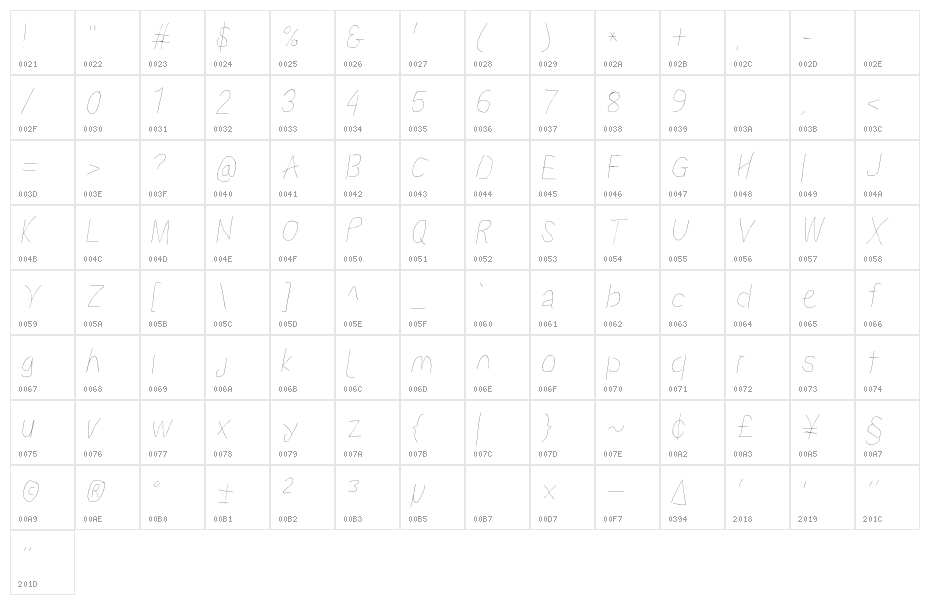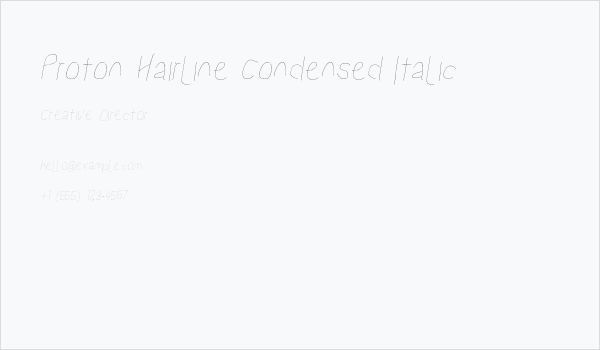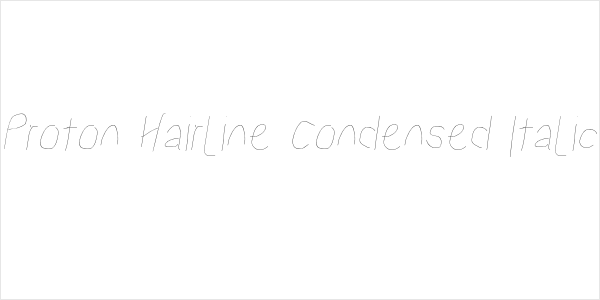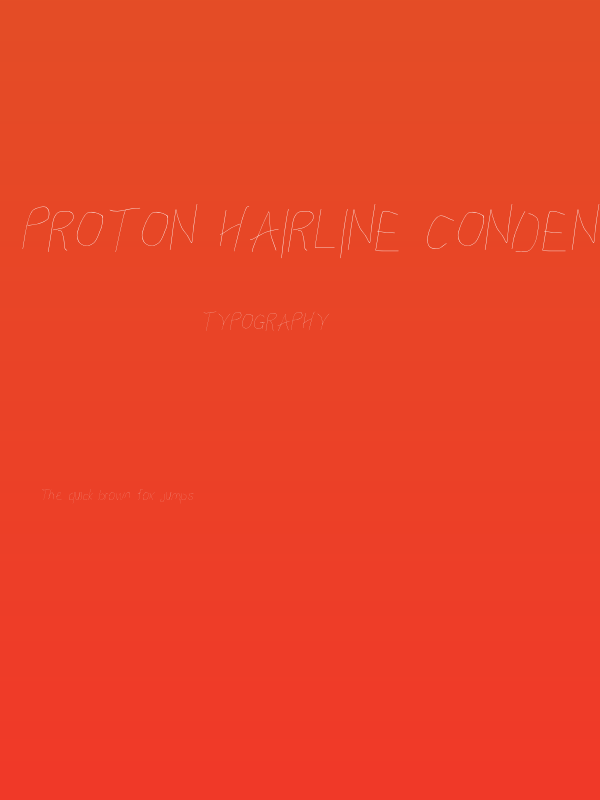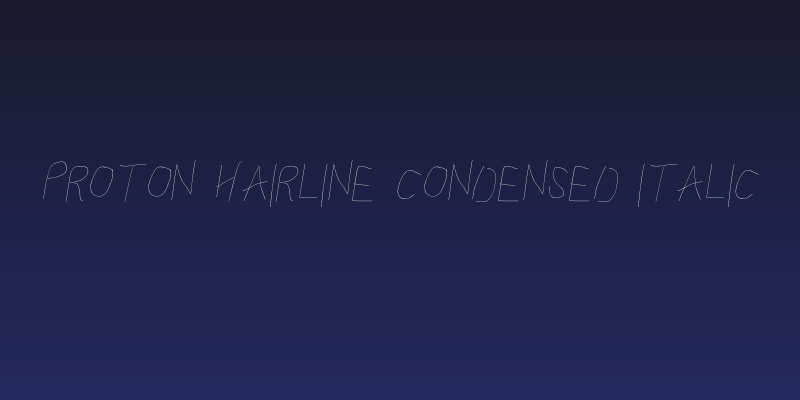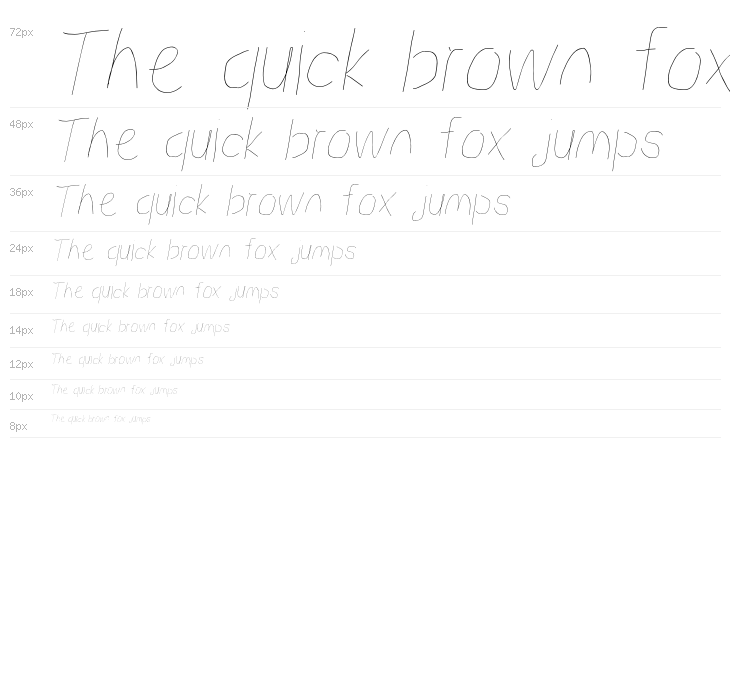
Proton Hairline Condensed Italic Font
Proton Hairline Condensed Italic Description
This font features a delicate and refined appearance, characterized by its thin, hairline strokes and a condensed structure. The italic style adds a sense of elegance and fluidity, making it suitable for sophisticated and modern designs. The characters are slightly slanted, enhancing the dynamic and graceful look. The font maintains a consistent stroke width throughout, contributing to its minimalist and sleek aesthetic. Its condensed form allows for efficient use of space, making it ideal for projects where space is limited but style is essential. The overall design is clean and uncluttered, with a contemporary feel that is both stylish and versatile.
| Proposed Projects | Ideal for fashion magazines, luxury branding, minimalist posters, and elegant invitations. |